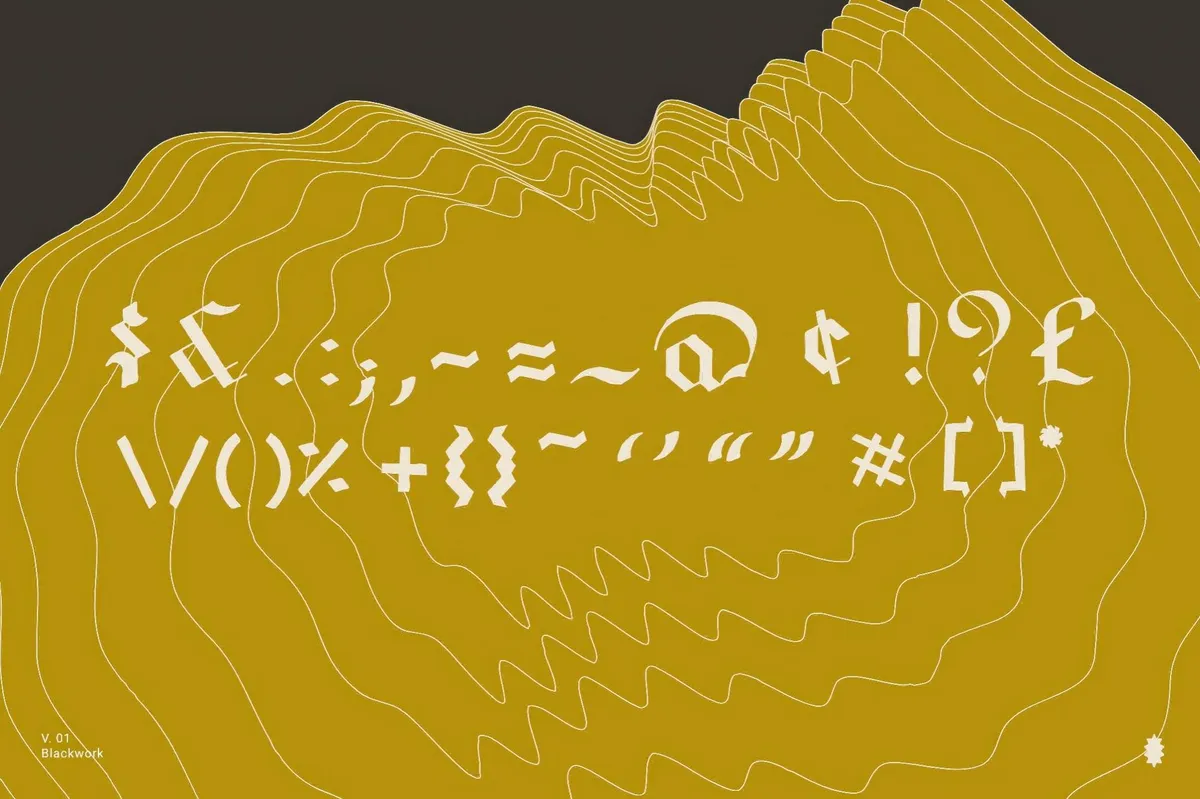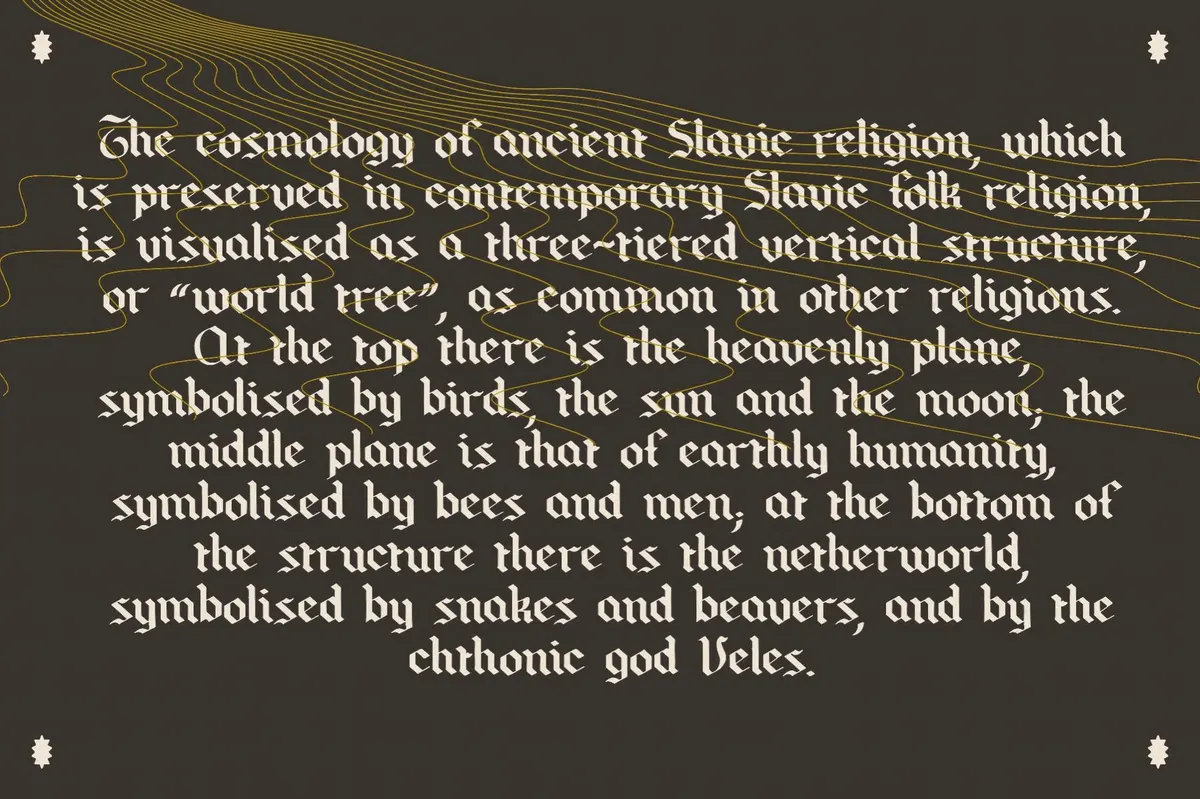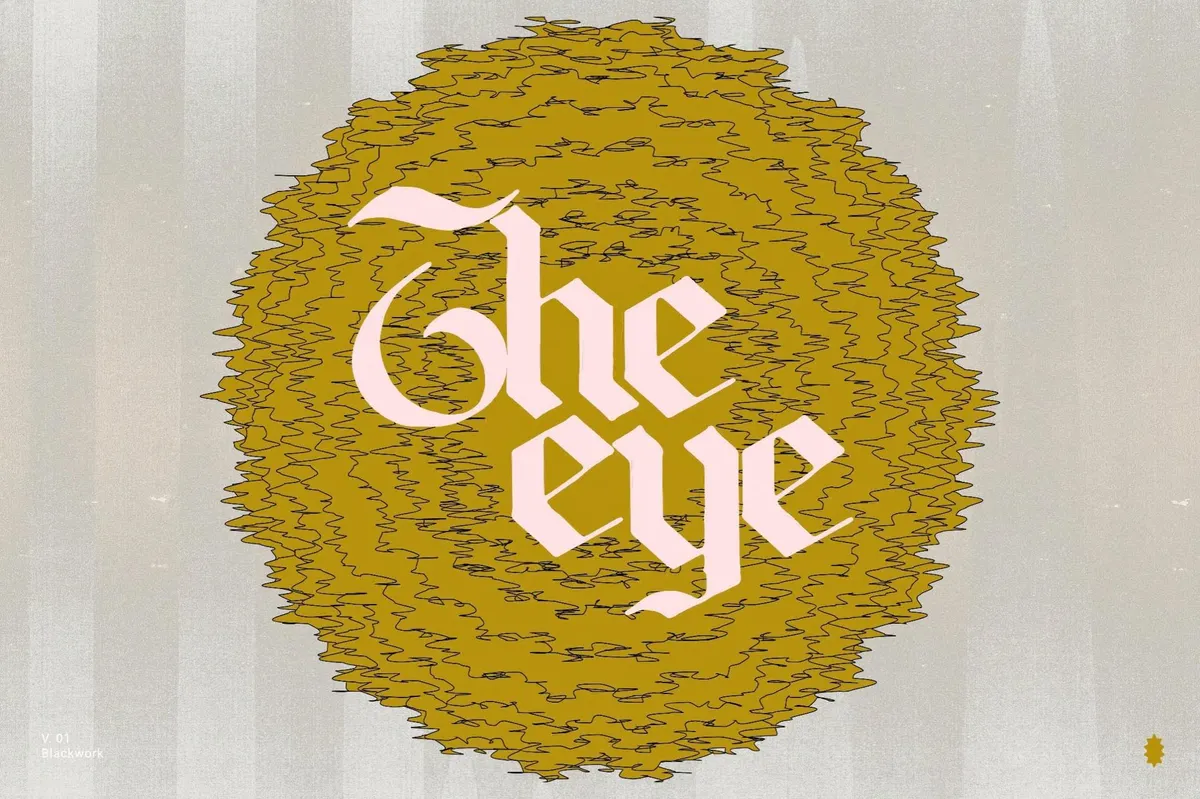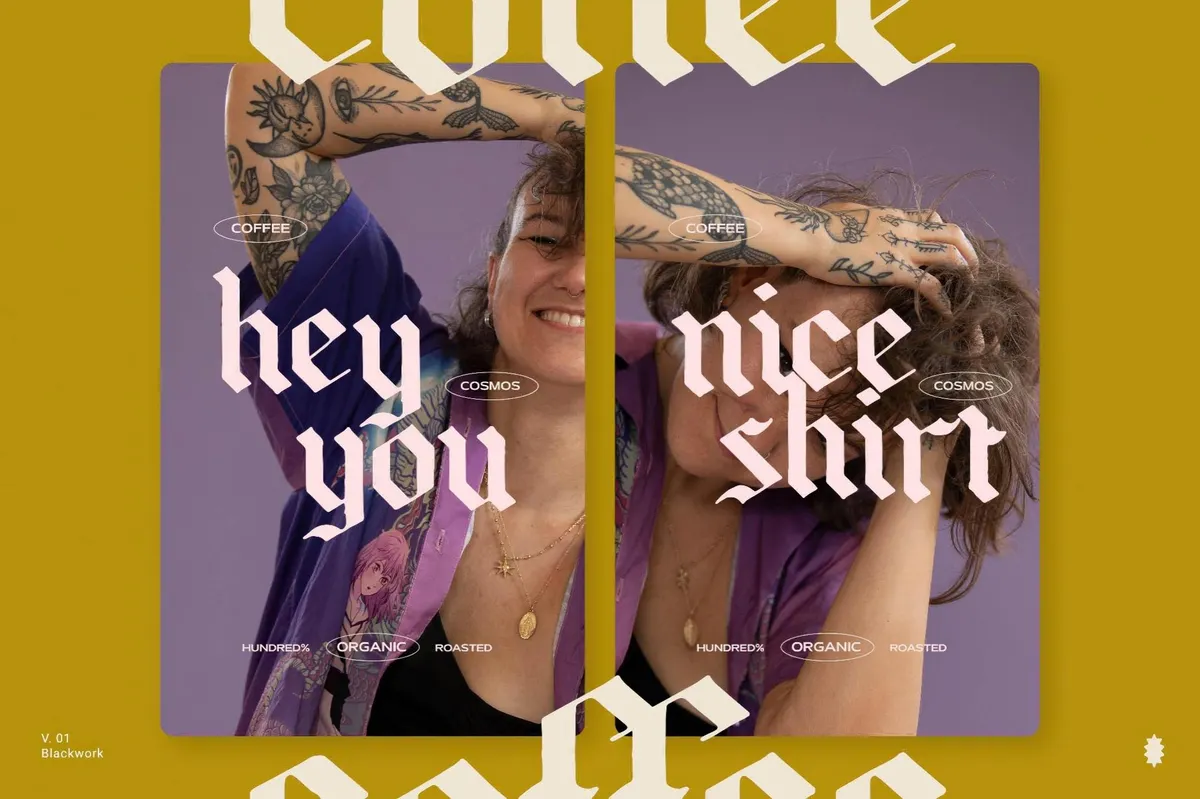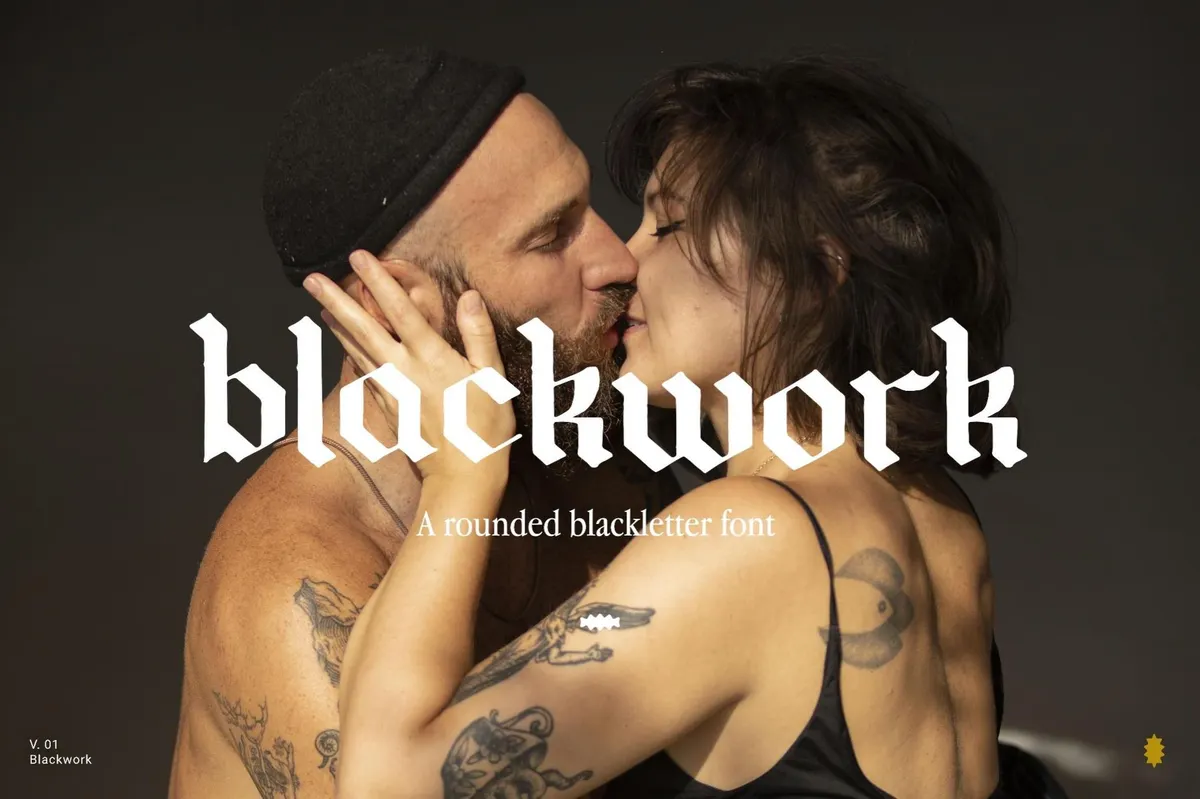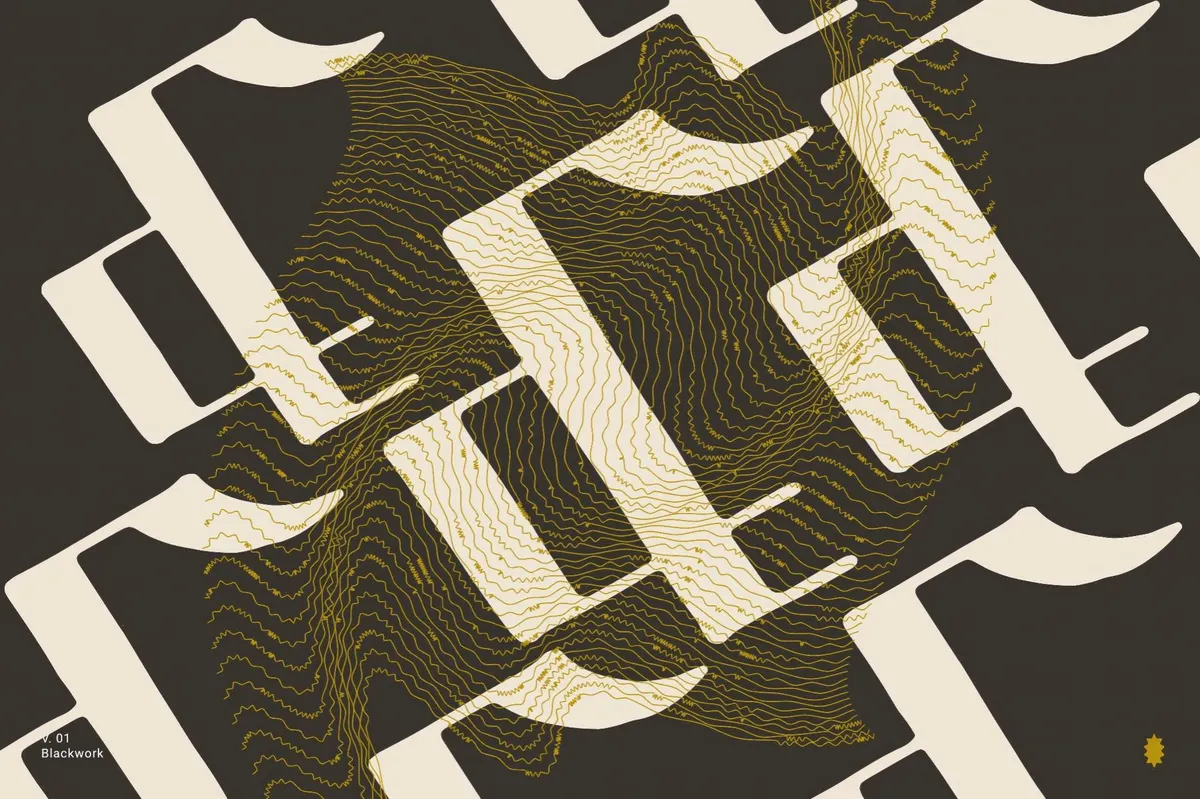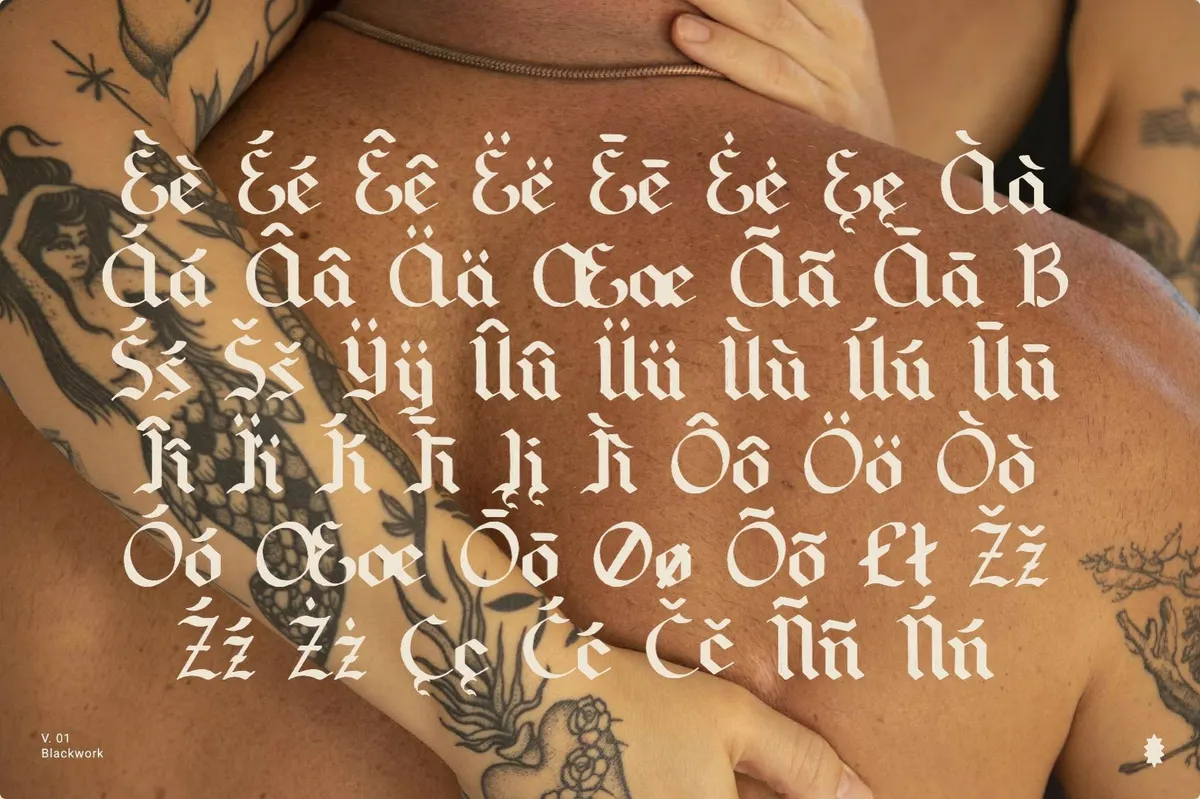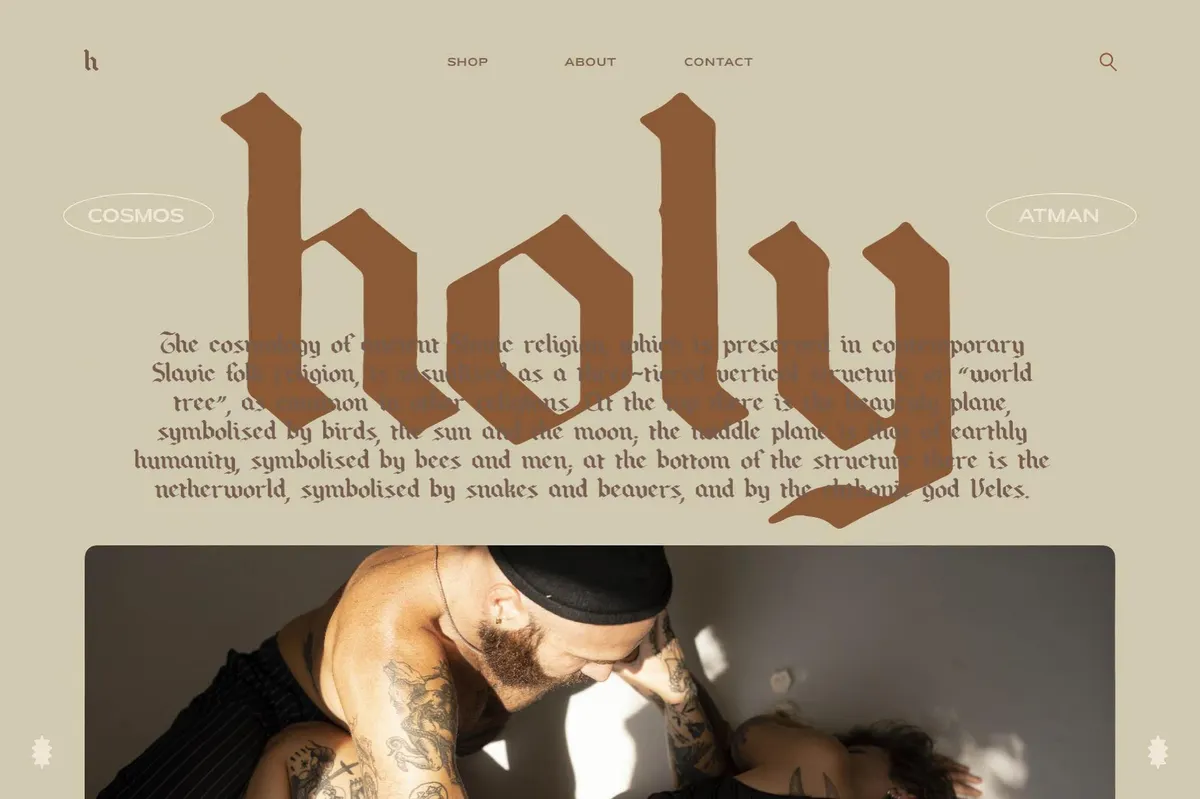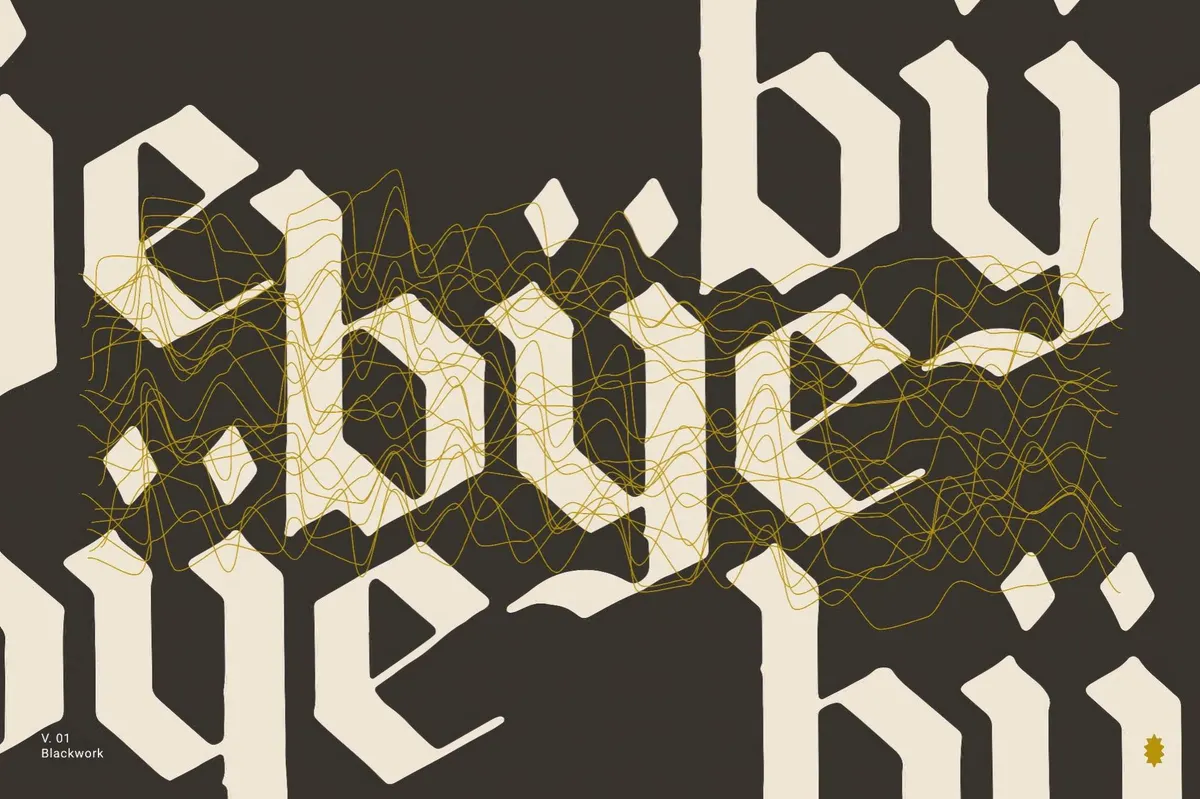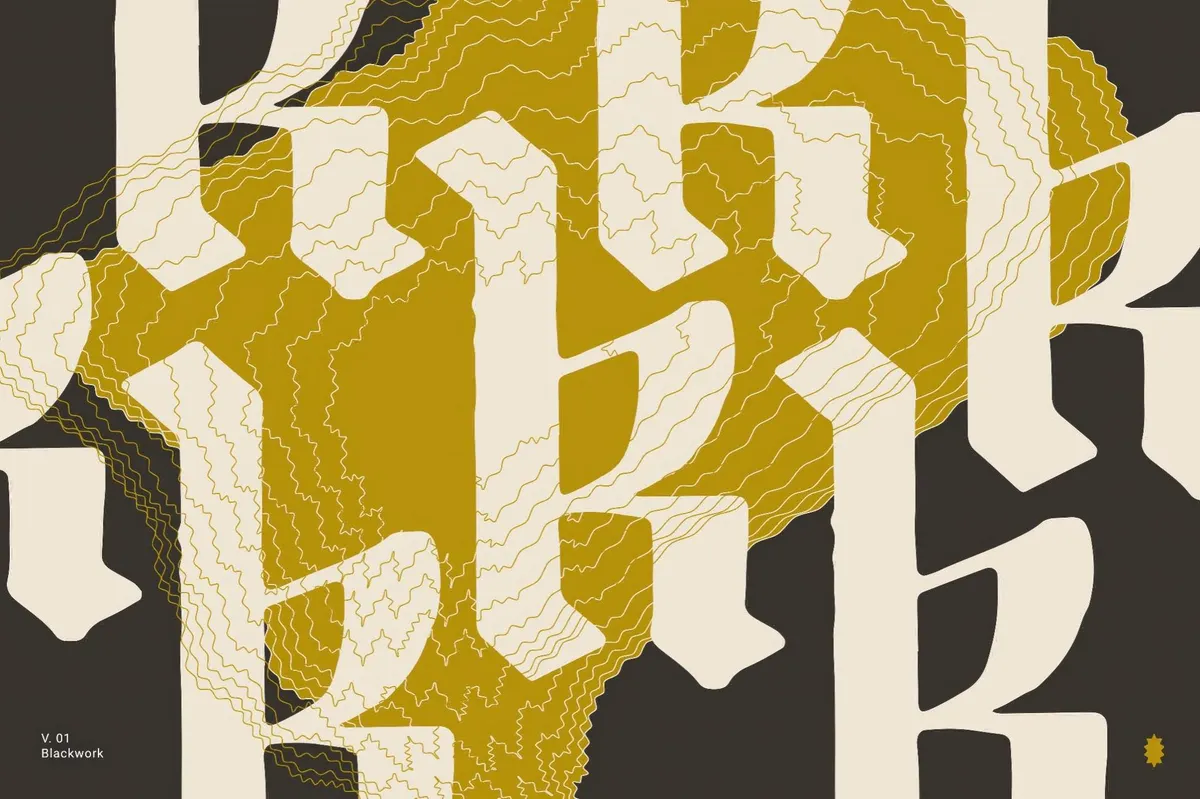
Blackwork Gothic Font
Blackwork
Blackwork is a rounded blackletter font rooted in the heavy strokes of medieval script and the ornate rigor of Gothic calligraphy. Echoing the solemn weight of Old English manuscripts, it offers a striking combination of historical gravitas and modern readability.
The font includes uppercase, lowercase, numerals, punctuation, and multilingual support for Latin-based languages. With this extensive character set, Blackwork is a powerful choice for editorial layouts, ritualistic branding, album artwork, ceremonial invites, and even spiritual or cinematic storytelling.